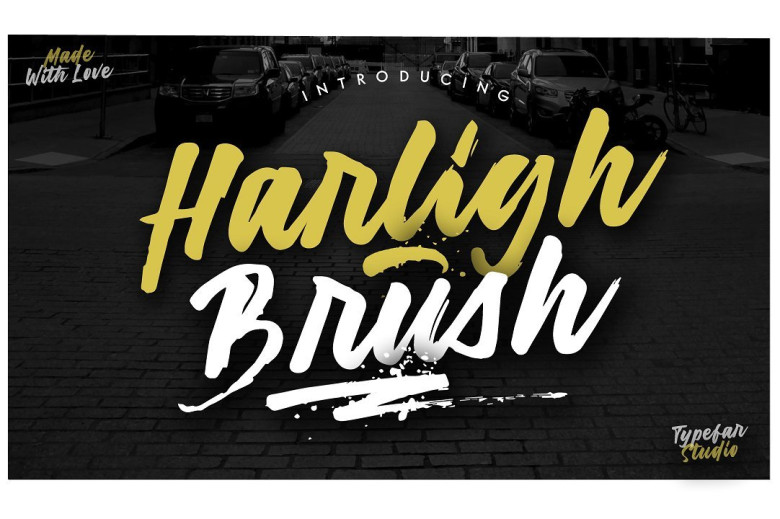
Harligh Brush Font
Hi everyone. A sweet brush modern script style & decorative characters. Introducing Harligh Font. It is designed and shared by Typefar. Harligh – This font is best used for your design project that has the concept of fun, brave and sporty. Can also be applied to the design of a logotype, header website, make some lettering a quote, t-shirt design etc.